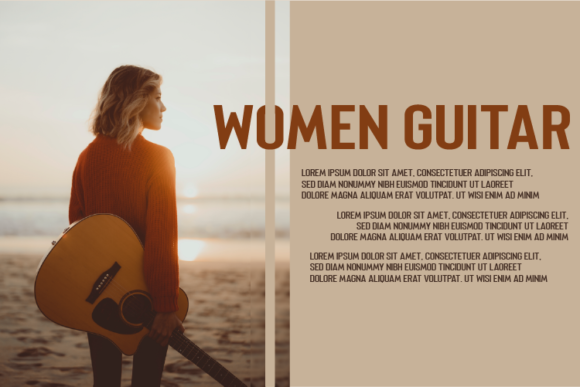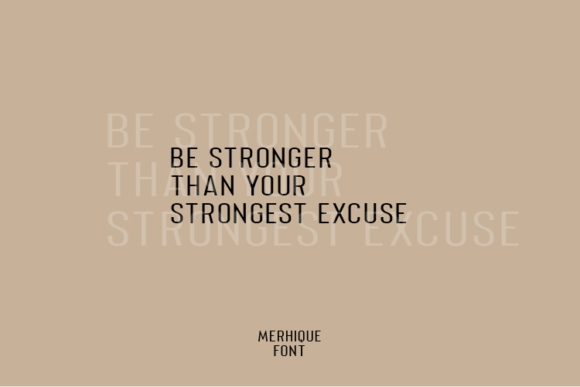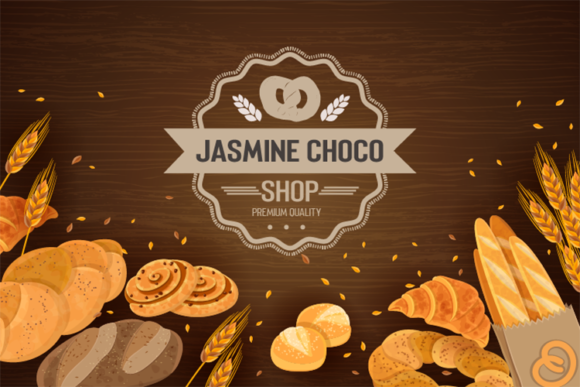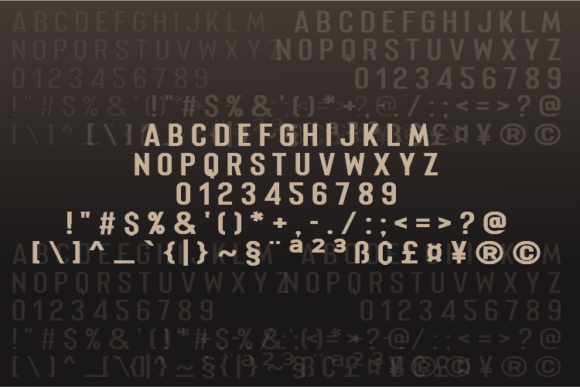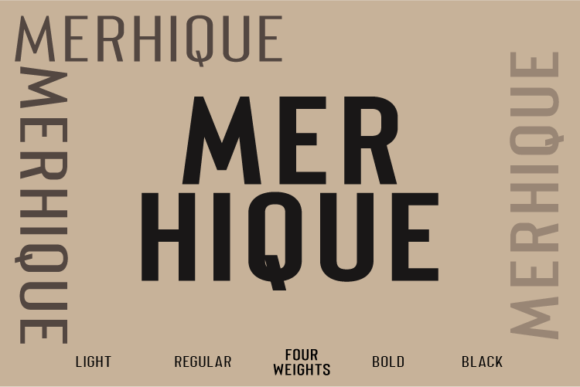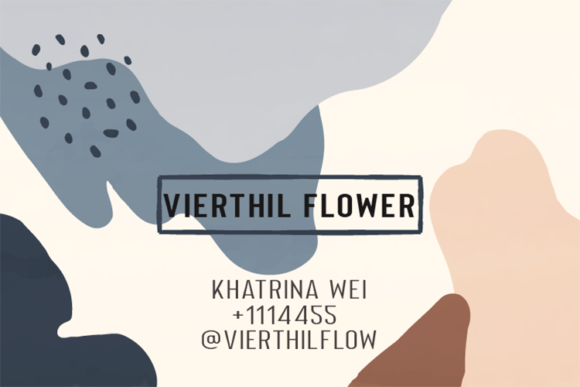
Introduction to Merhique Family Font
Merhique Family is a timeless and stunning all caps sans serif font.
It is perfectly suited for a wide variety of projects .
Key Features of Merhique Family Font
Why Choose Merhique Family Font?
Merhique Family Font offers exceptional quality and versatility, making it a valuable addition to your design toolkit. Whether you’re creating for personal projects or commercial use, Merhique Family Font delivers professional results.